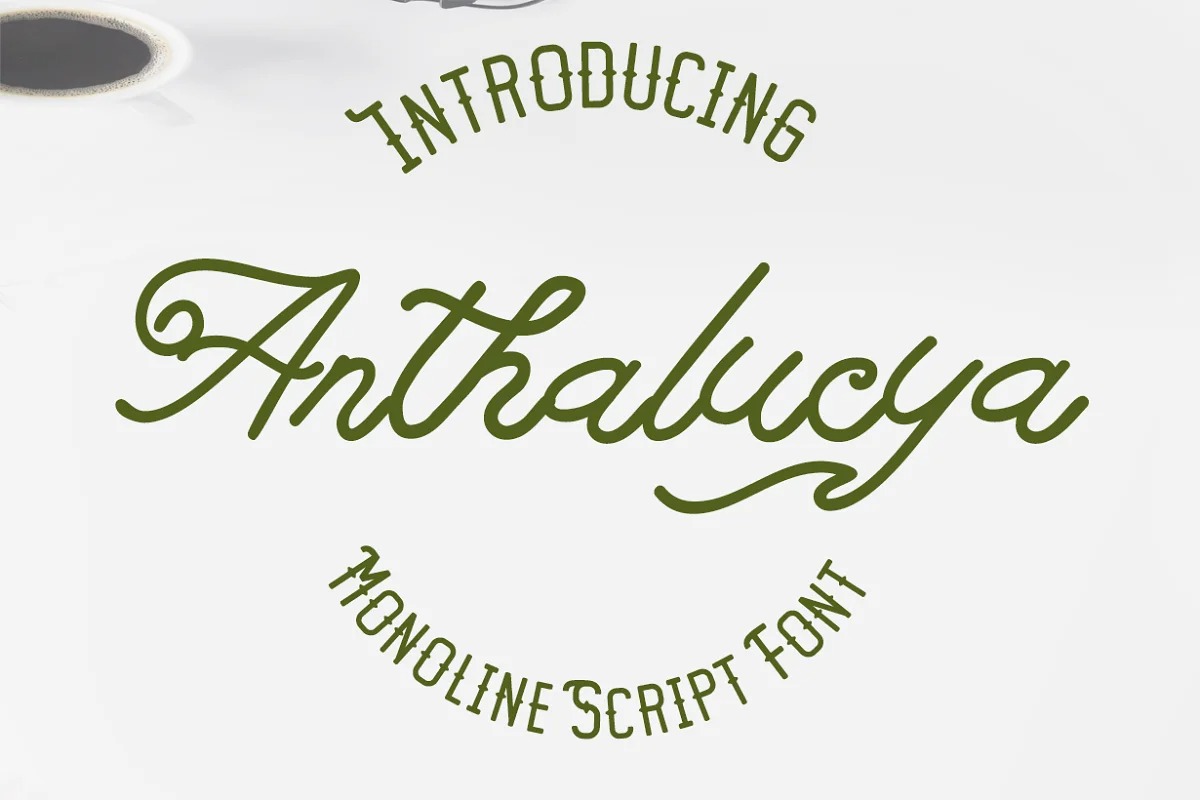
Anthalucya Font
Anthalucya Script Font
This is a script typeface with monoline lines. Made from font designer named Anomali Creatype. Anthalucya includes full set of lovely uppercase and lowercase letters, multilingual symbols, numerals and punctuation. This is so perfect for invitations, monograms etc.